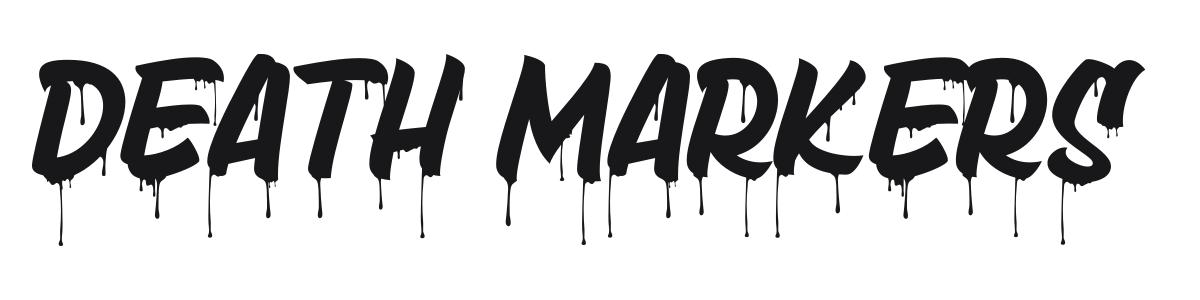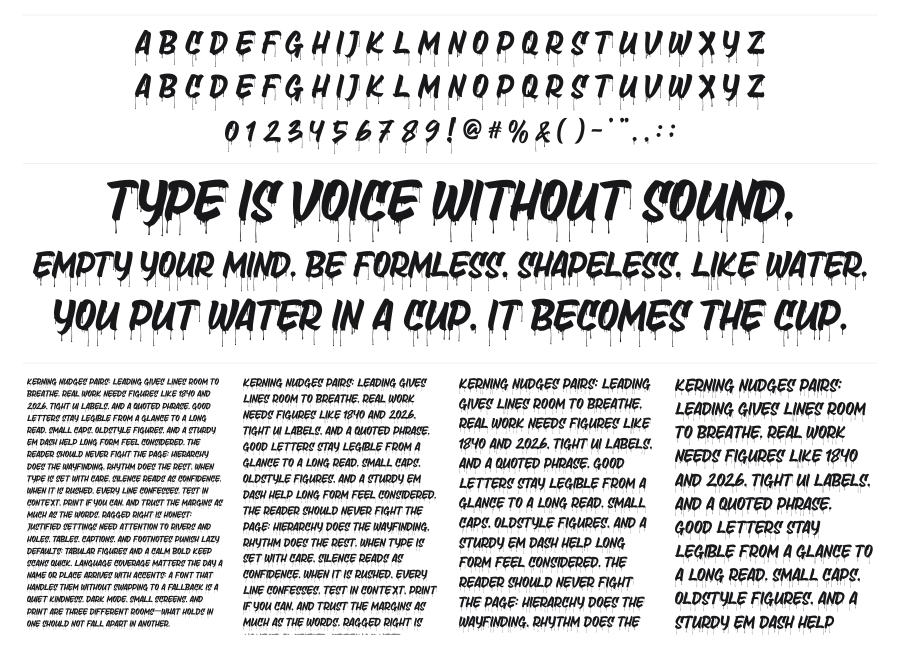
Death Markers
by Figuree Studio
Death Markers is a heavy brush script with ink drips that hang from the bottom of nearly every character. The bold strokes and forward lean give it a forceful, kinetic energy rooted in graffiti and horror aesthetics. It reads loudly at large sizes, suited to album covers, horror titles, and apparel graphics.